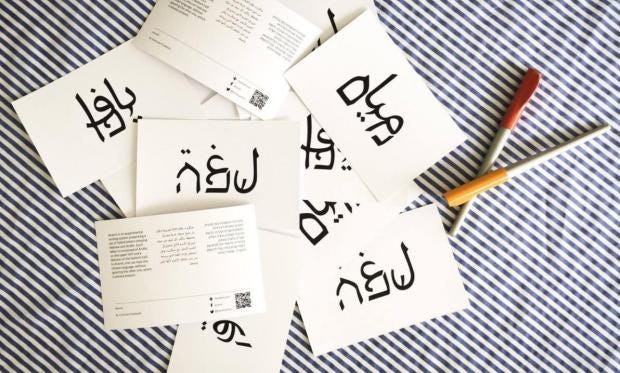
Aravit, a new typeface which manages to merge Hebrew and Arabic letters together, is being billed as a language of peace - and it’s not hard to see why.
Liron Lavi Turkenich, a 32-year-old Israeli graphic designer and researcher, was inspired to see if she could combine the two languages by the bilingual road markings and other official signage in her home town of Haifa, which has a large Arab population.
“It’s common to hear both Hebrew and Arabic in Haifa. I don’t speak Arabic, and one day I noticed I ignore the language,” she said in a video explaining how Aravit works. “I looked for a way to bridge the gap and that led to my project.”
The writing system utilises the work of French ophthalmologist Louis Émile Javal, who discovered that we only need to be able to see the top half of Latin letters to make sense of a word.
The same is true for Arabic - and, as Ms Turkenich found, the bottom half of the Hebrew alphabet.
She eventually created 638 characters which cover all possible letter combinations.
While several initiatives along the same lines as Aravit have been floated in the past, but Ms Turkenich’s invention appears to be making real waves: a video in Hebrew explaining the project has been viewed on different social media accounts more than a million times and generated thousands of positive comments since it was picked up by Israeli public broadcaster Kan last week.
Language is often tied up with politics in Israel and the occupied West Bank; in May, Israeli politicians gave their backing to a bill which would make Hebrew the only official language in the Jewish state - a move critics said marginalises Israel’s 20 per cent Arab population.
“This didn’t start as a political project, but the response on the street is amazing,” Ms Turkenich said.
“People can read it right away and feel like they’ve solved a riddle. Bottom line, I wanted everyone to read the language they find easiest… without ignoring the other language which is always present."